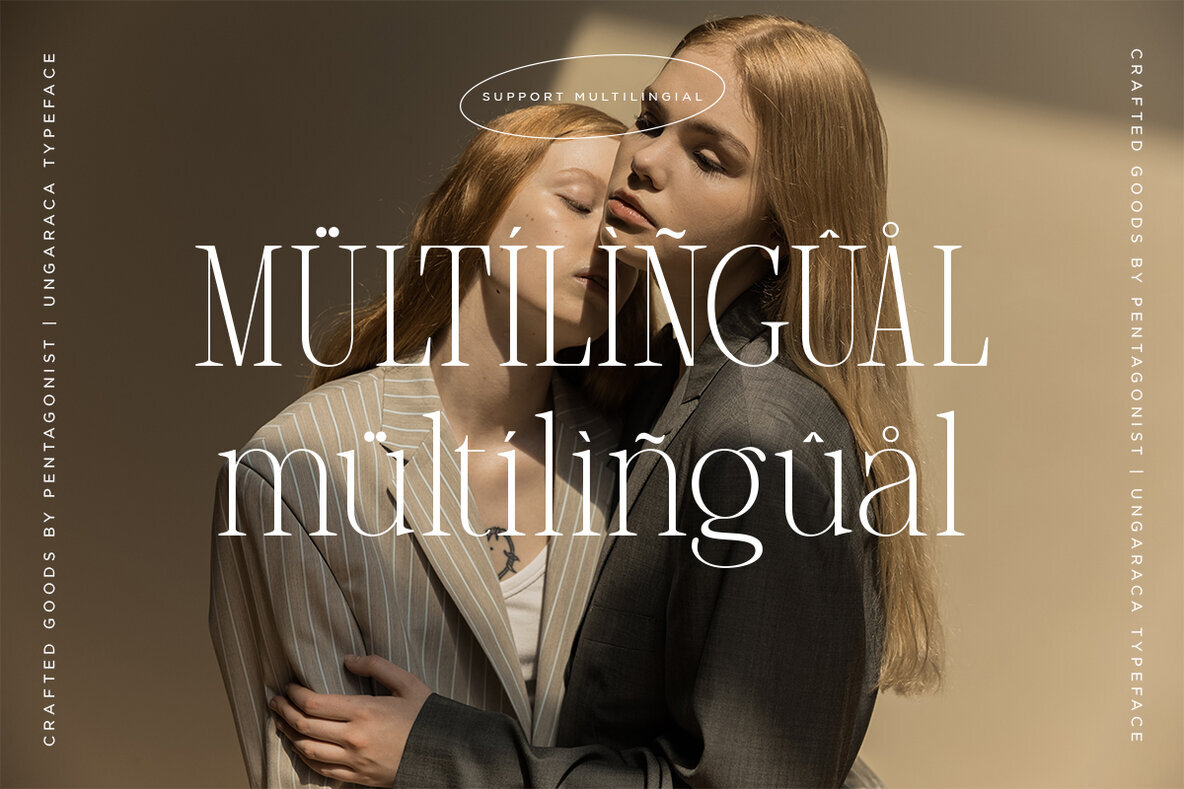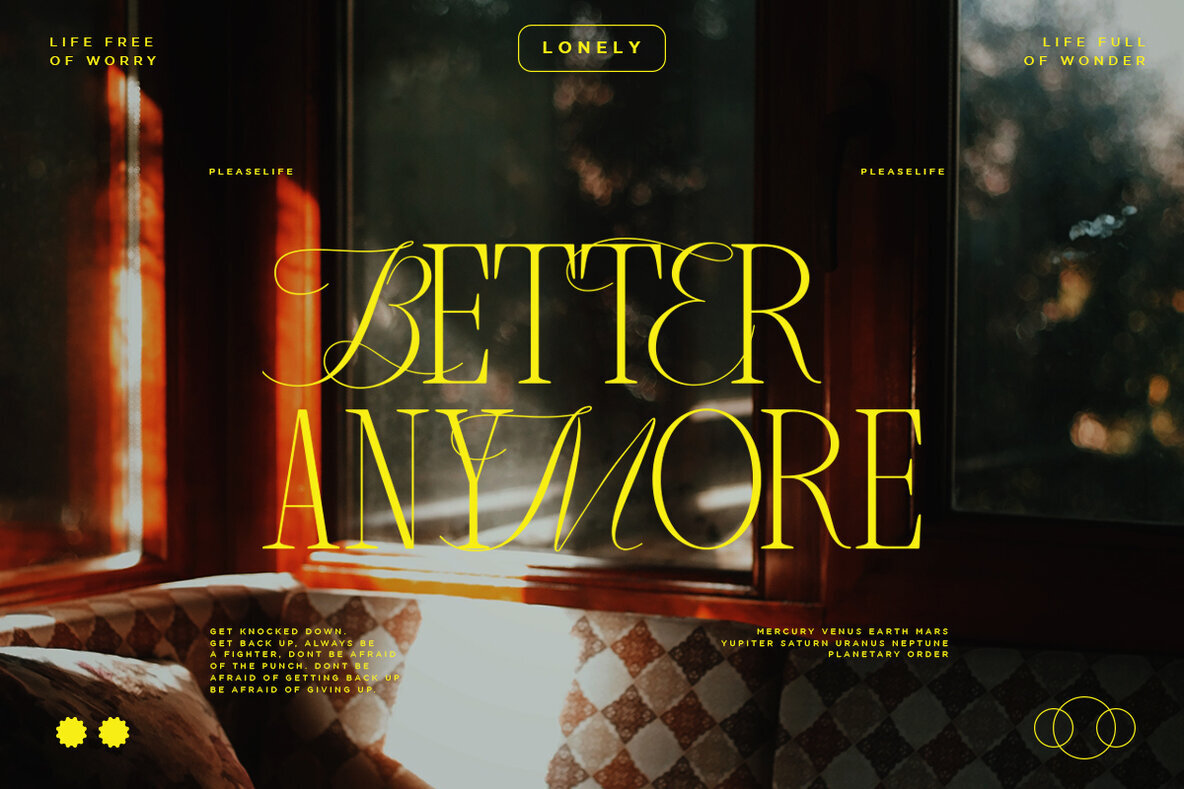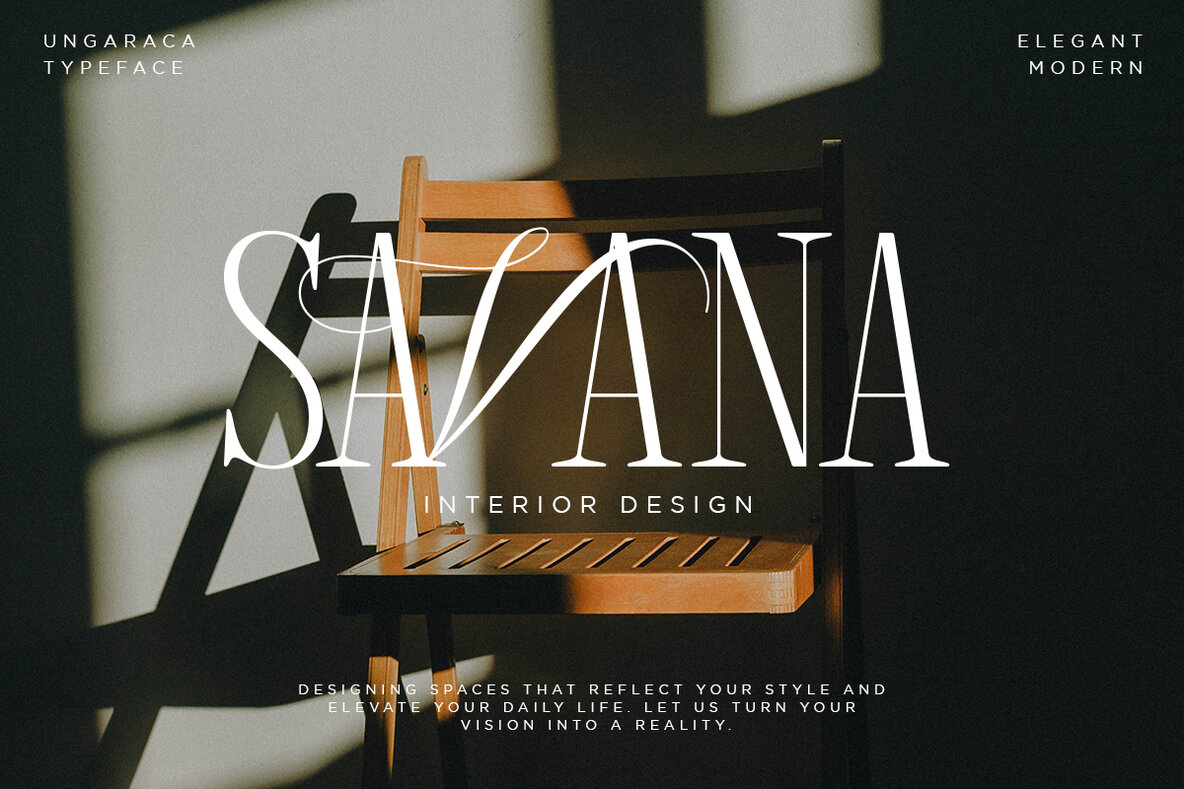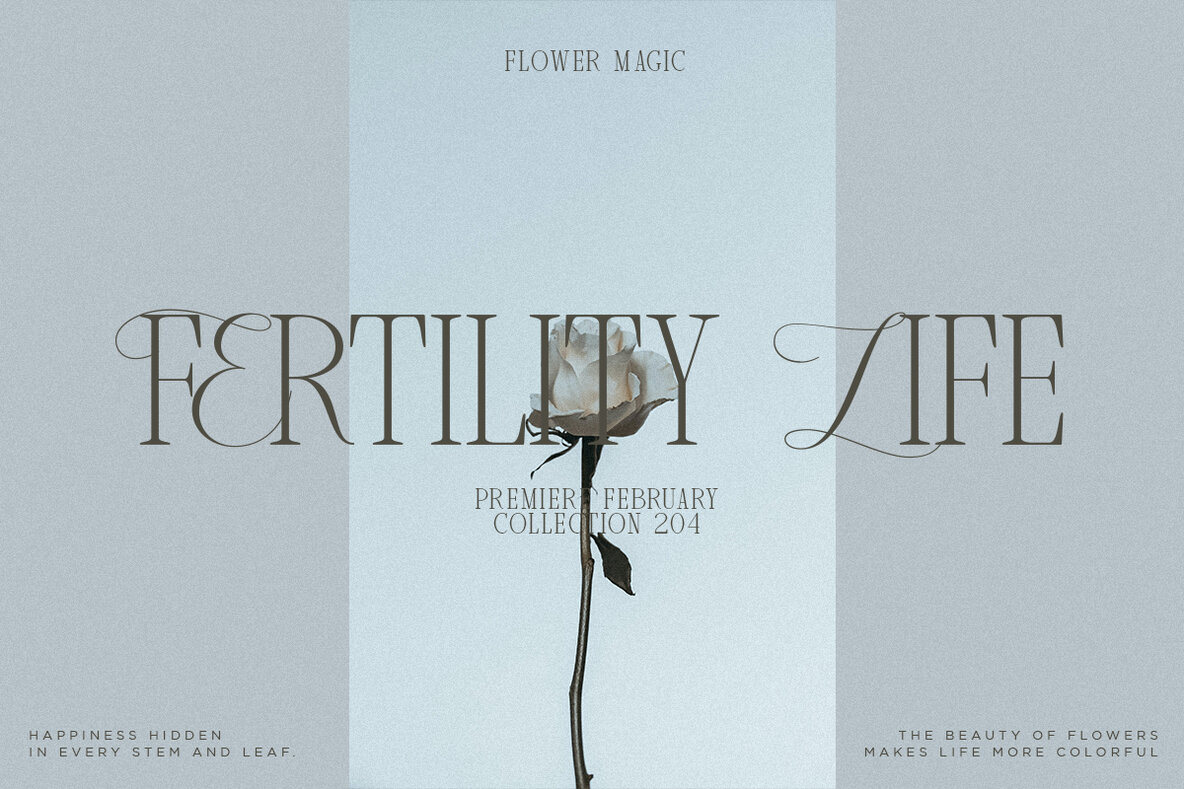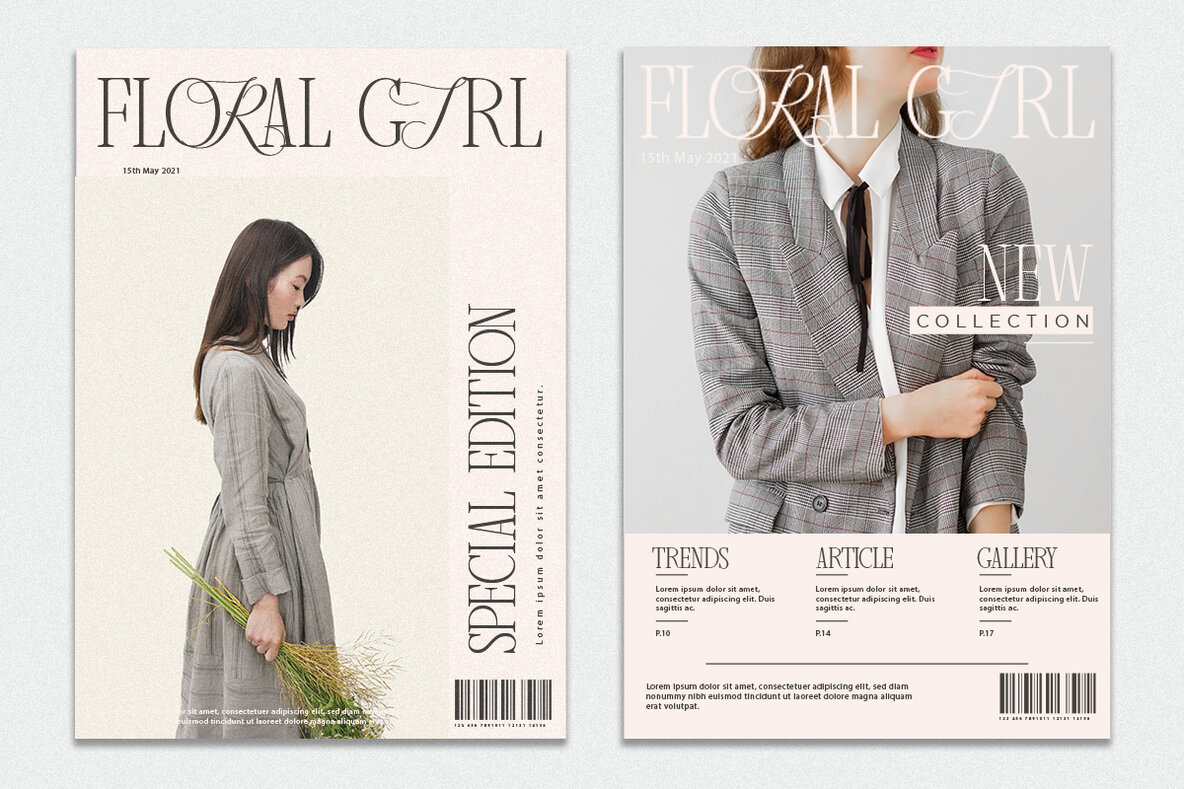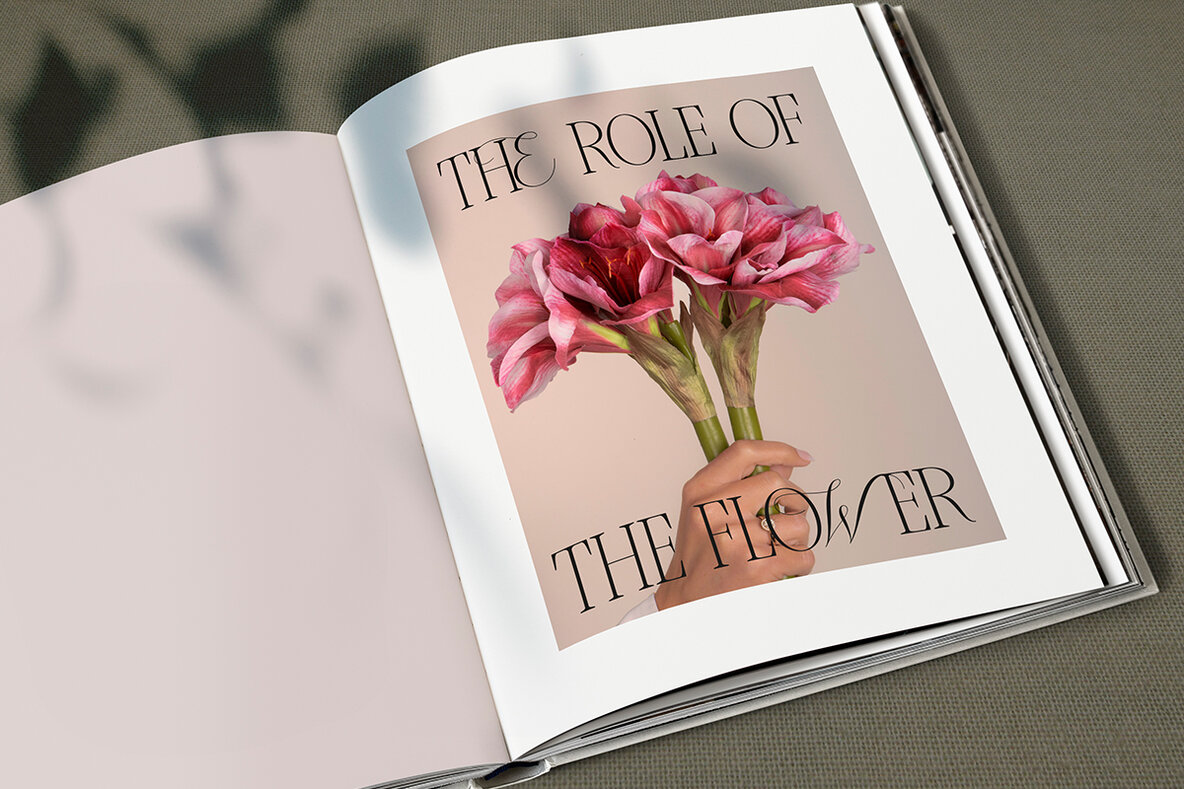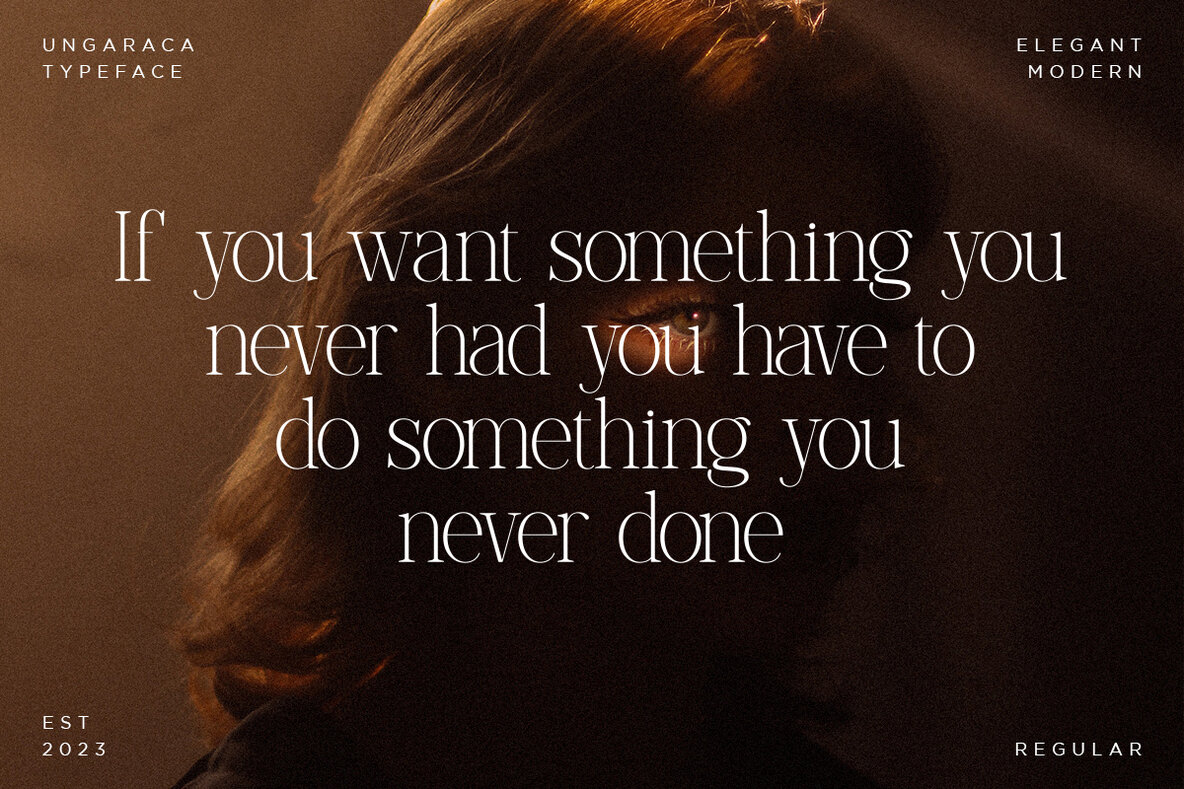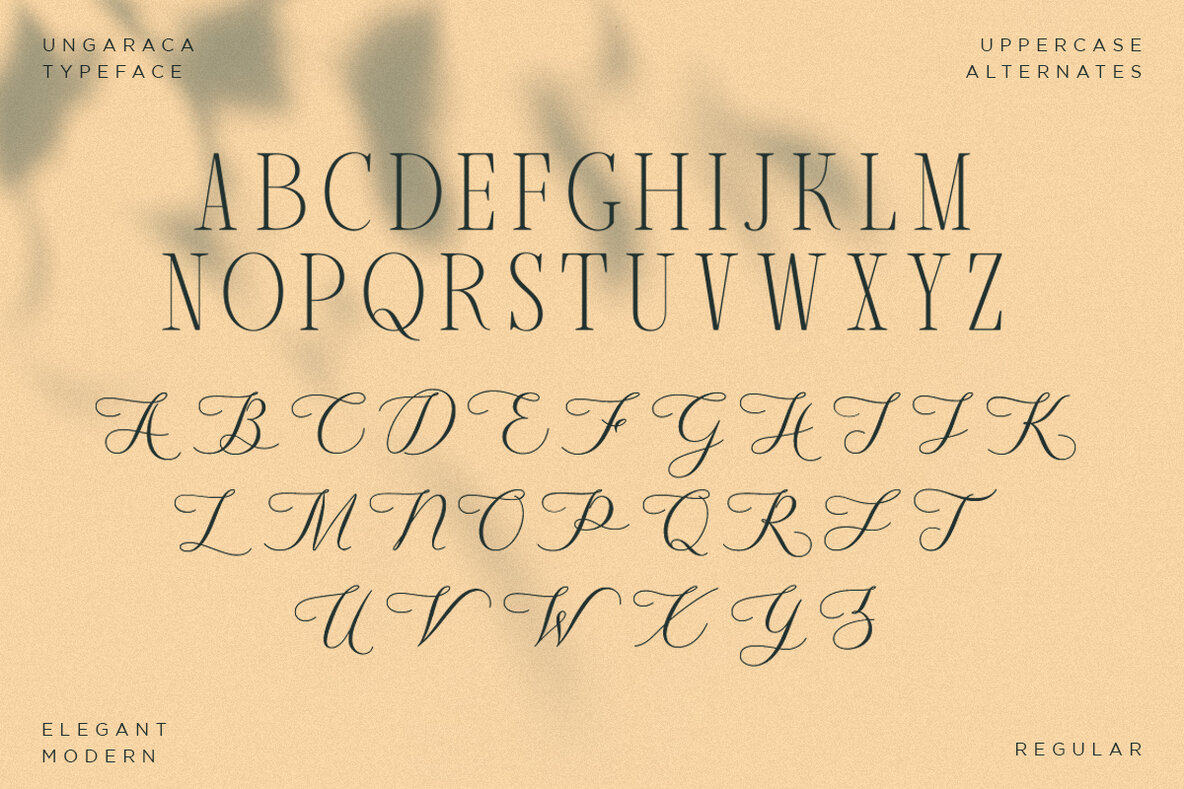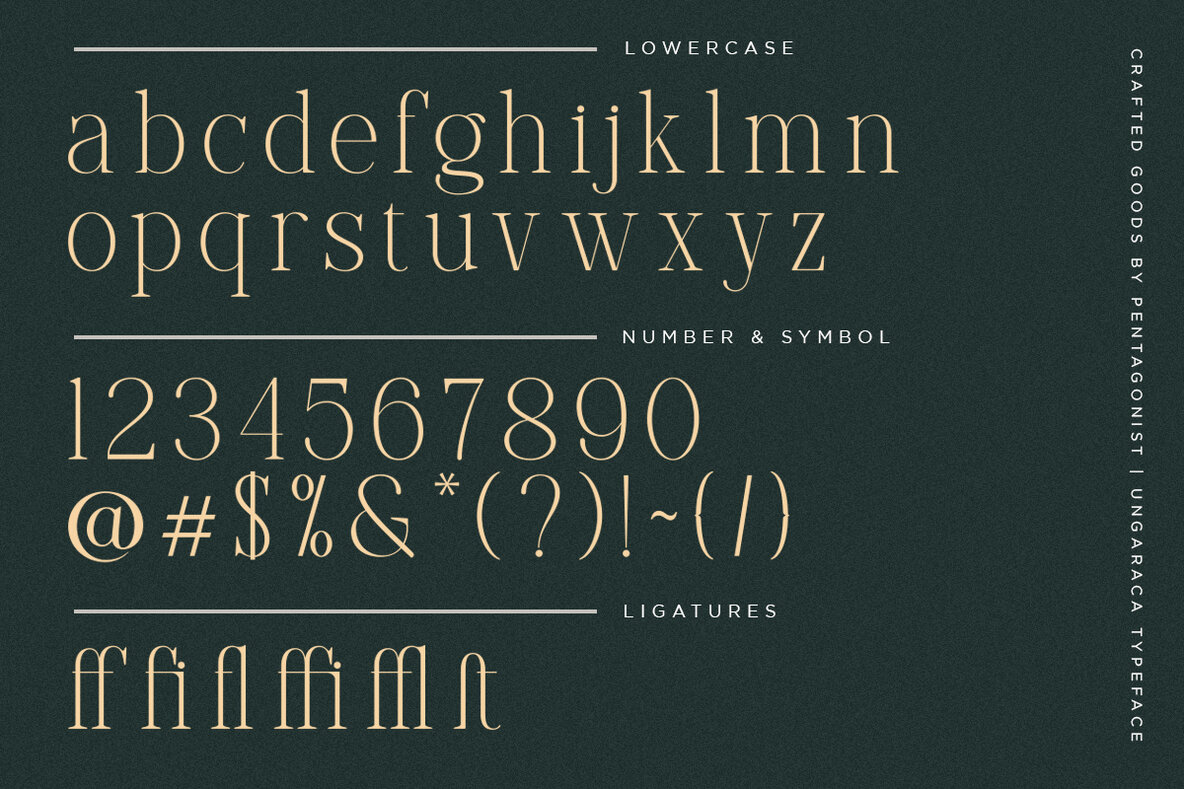
Ungaraca Font
Ungaraca Regular
The Modern Duo That Combines Serif and Script Style
Ungaraca strikes the perfect balance between serif and script style, making it a versatile choice for a range of design projects. Its clean lines and elegant curves give it a sophisticated and modern look, while its script elements add a touch of playfulness and creativity. Use it for logos, branding, product packaging, social media graphics, and more.
With almost 400 glyphs to choose from, Ungaraca offers endless design possibilities. From alternate characters to ligatures, swashes, and more, you’ll have everything you need to create unique and eye-catching designs. Whether you’re designing a wedding invitation, a product label, or a website header, Ungaraca has you covered.
Ungaraca is more than just a font – it’s a way to tell a story. Its combination of serif and script style evokes a sense of timelessness and elegance, while its playful elements add a touch of whimsy and fun. Use it to create designs that are as unique and memorable as the stories they tell.